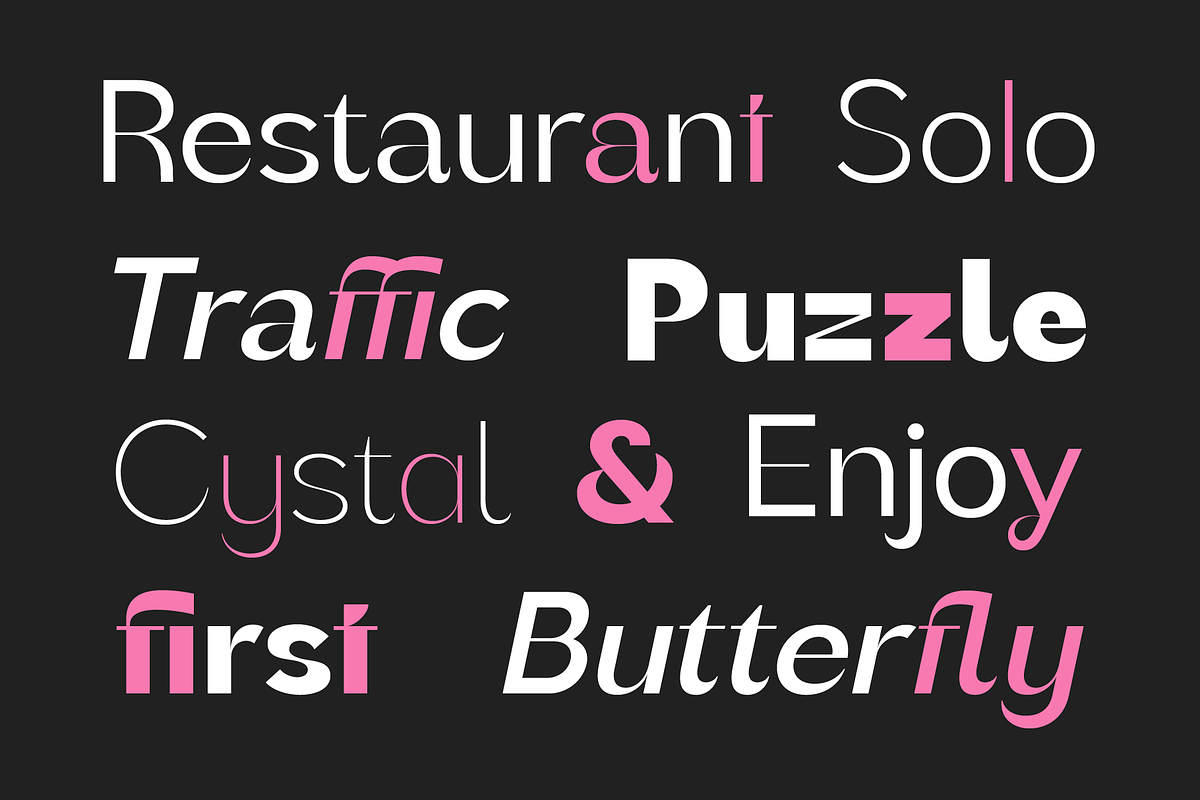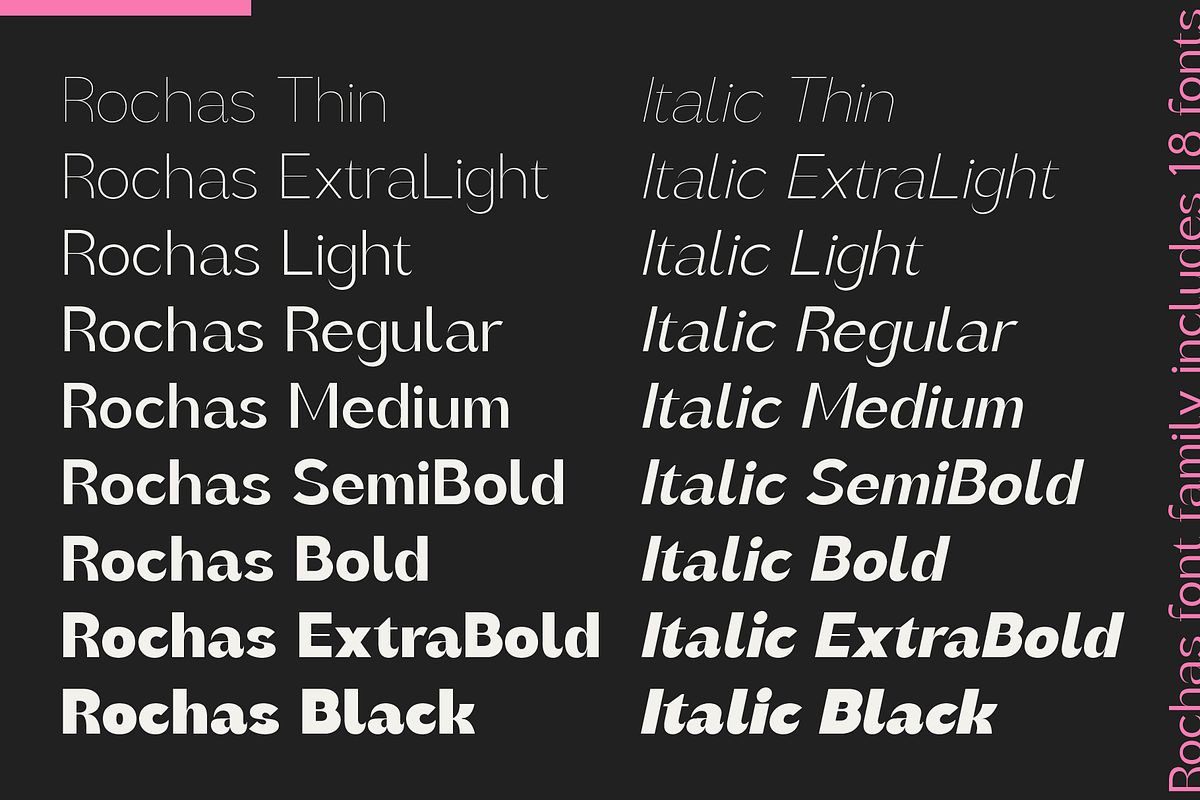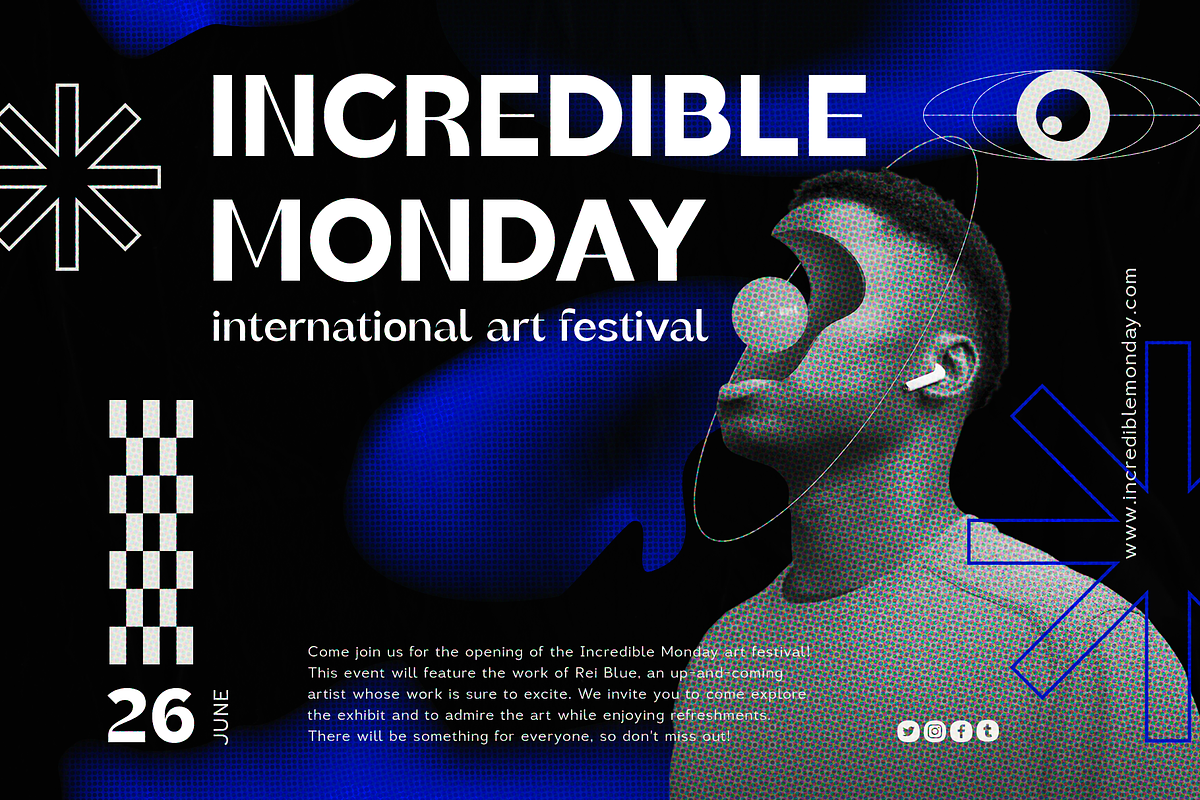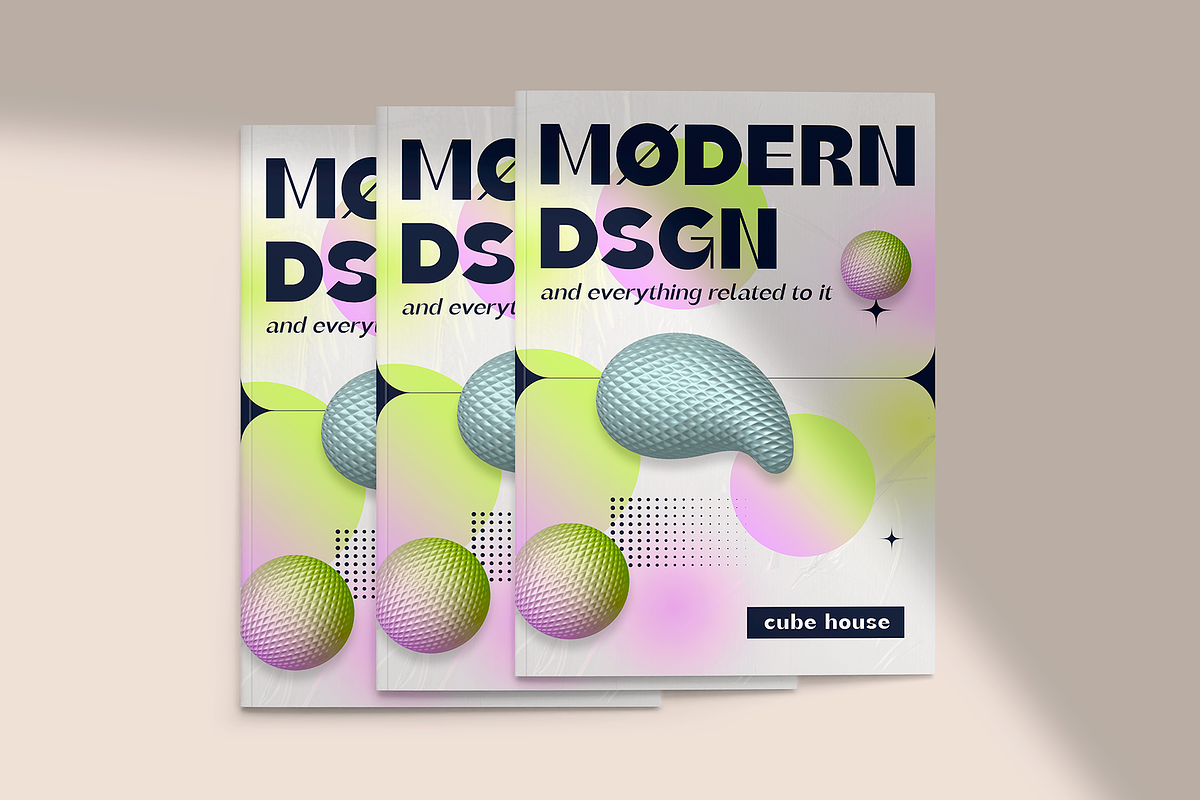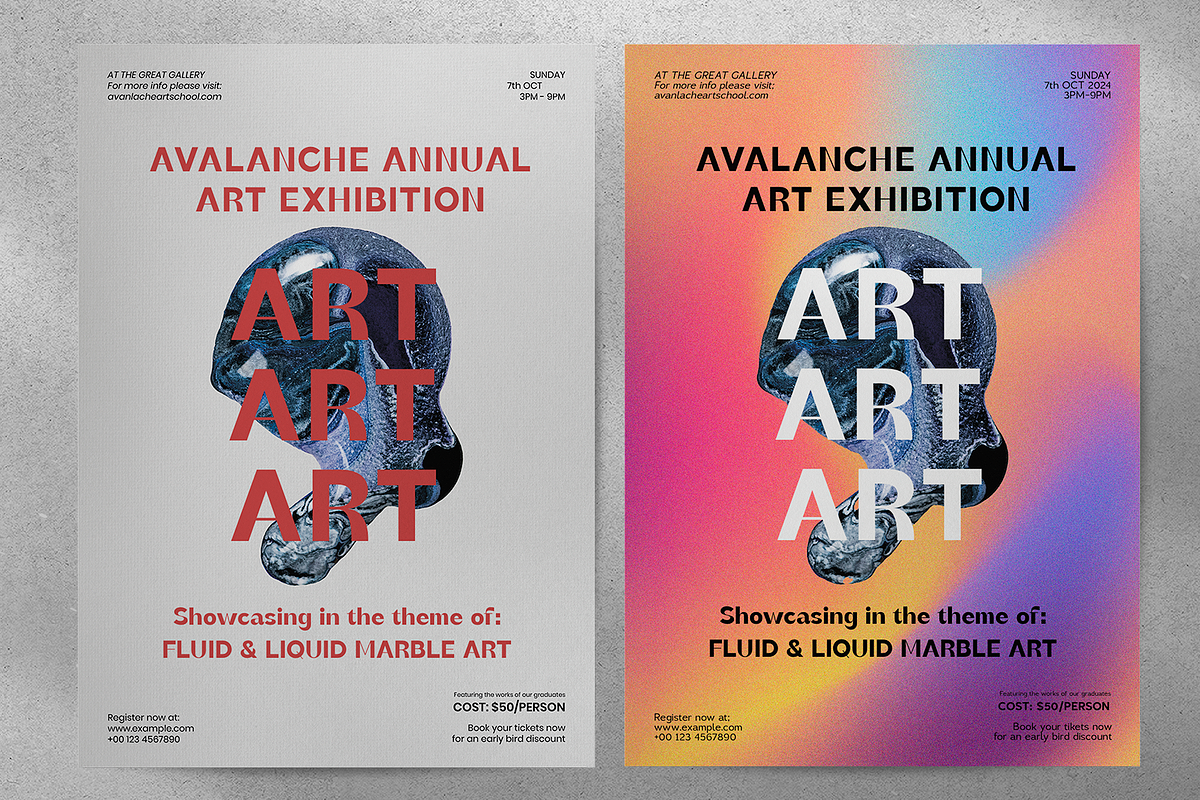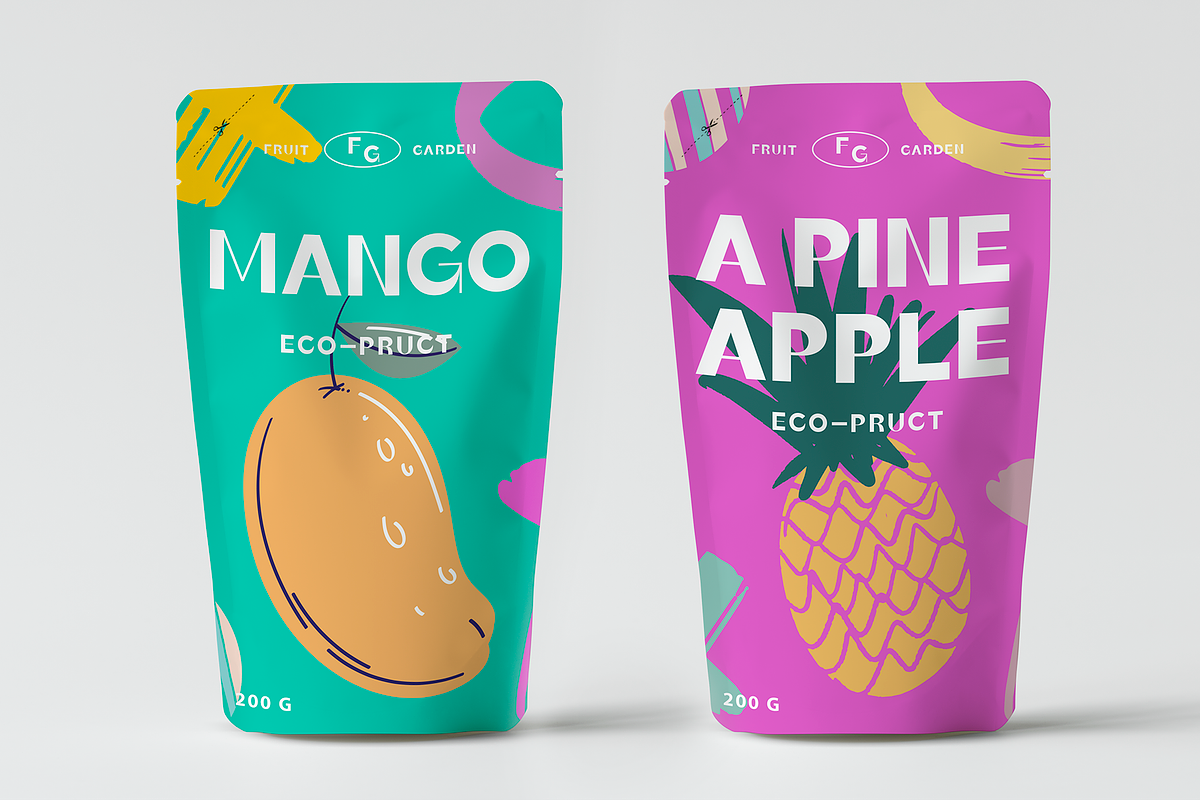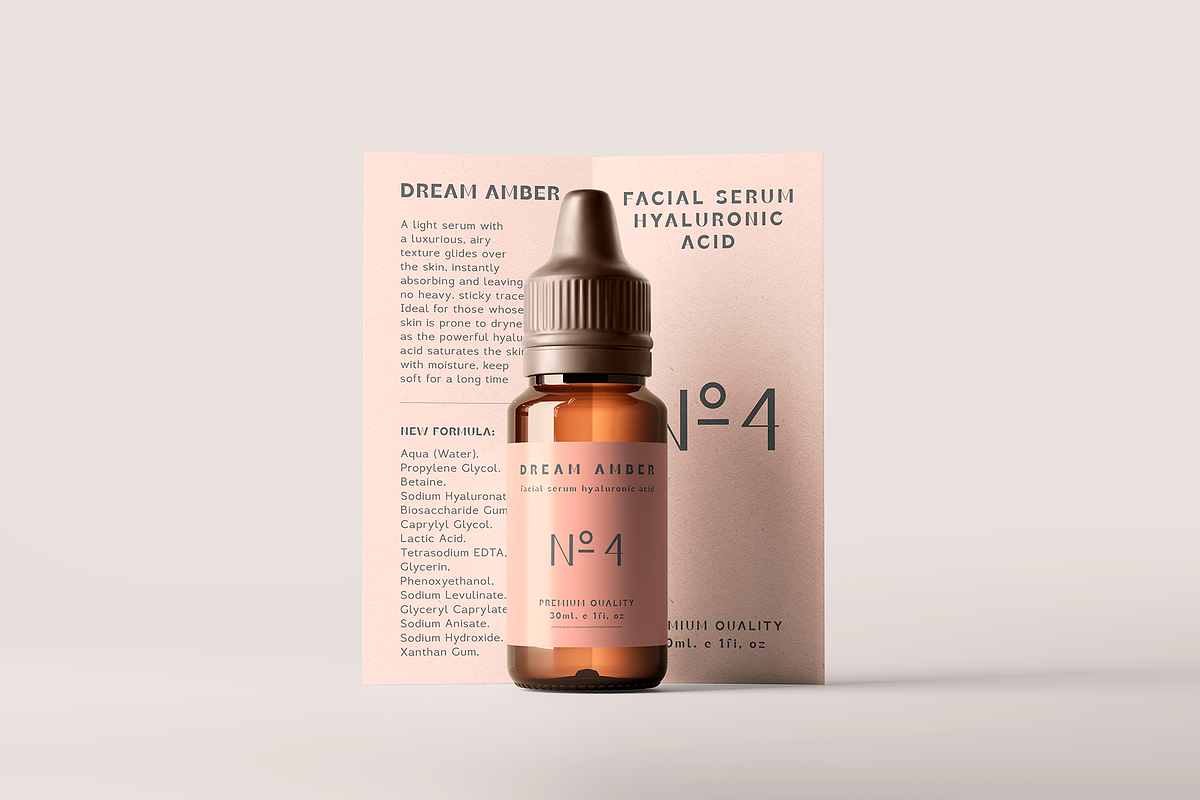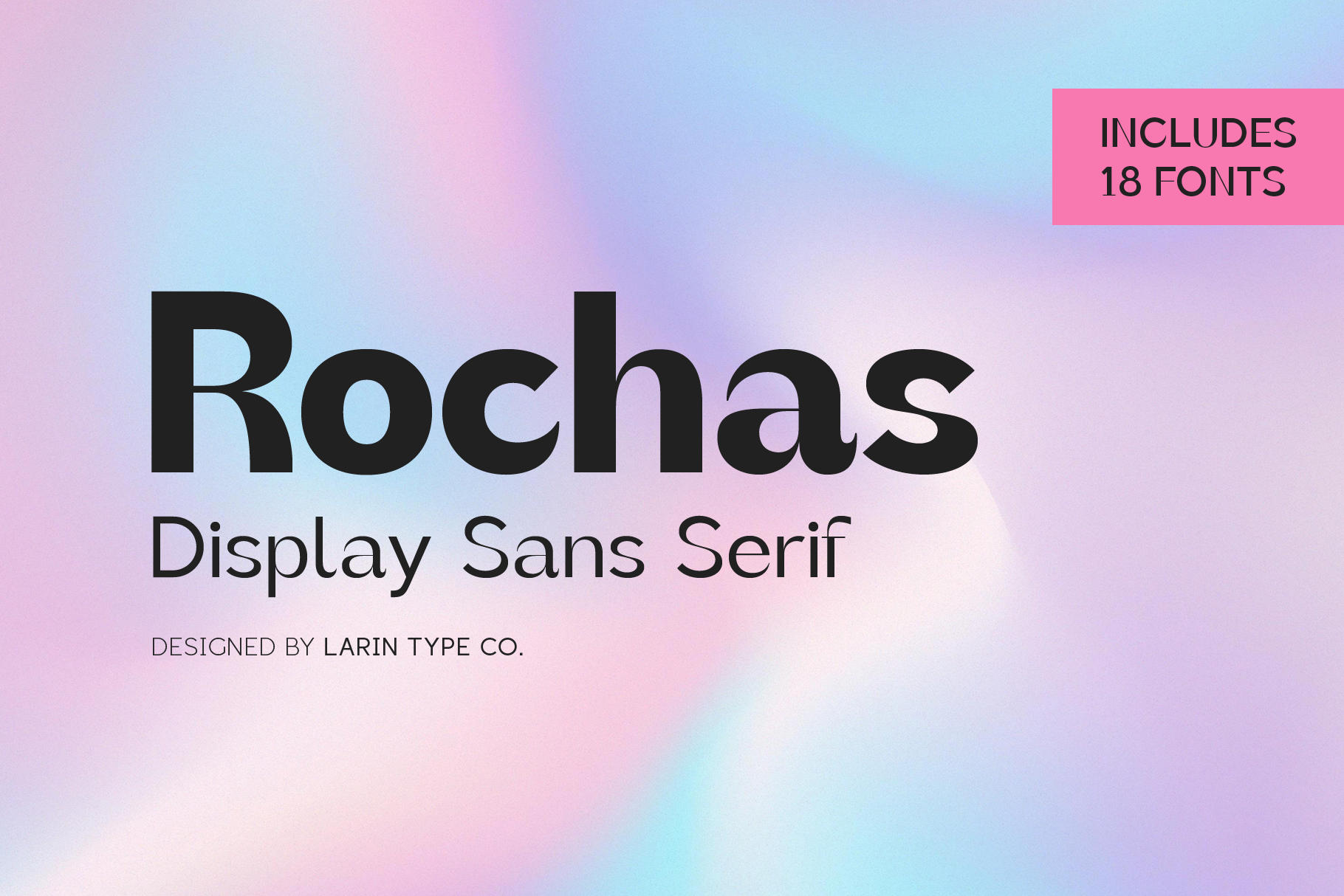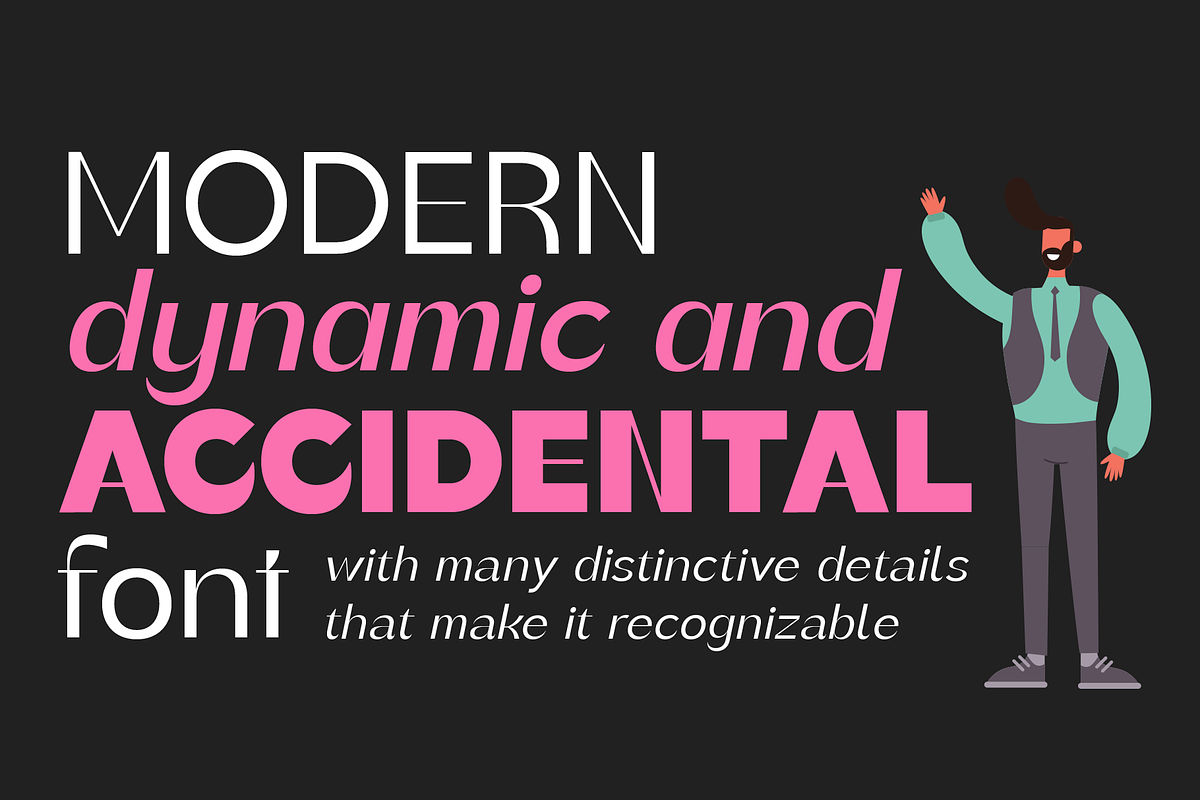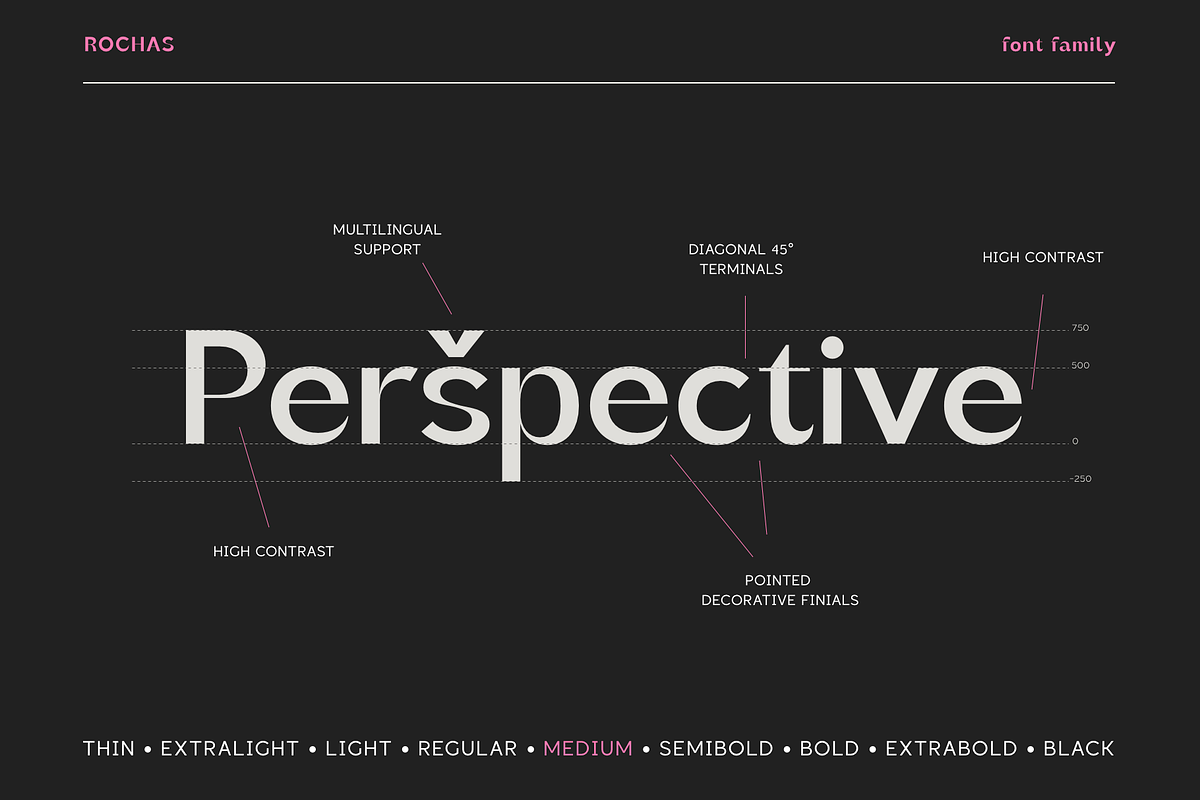
Rochas Font Family
Rochas is a sans-serif display font family with a bright and defiant appearance due to its unusual contrast. It includes 9 weight and italics to them from thin to black. It is versatile and suitable for a wide range of applications. With it, you can create logos, labels, use in advertising, packaging, branding, book and magazine covers, cosmetics, banners, posters, headlines, descriptions and much more.
Following international symbols support: ÀÁÂÃÄÅĄÇĆÈÉÊËĘÌÍÎÏÐÑŃŁÒÓÔÕÖØÙÚÛÜŚŠŸÝŹŻŽßàáâãäåçèéêëìíîïðñòóôõöøùúûüýÿąćęłńśšźżž
Full alphabet with Uppercase and Lowercase A-z
Numbers, fractions
Punctuation and symbols
Alternates for lowercase "a, l, t, y, z"
Ligatures "ff, fi, ffi, fl"